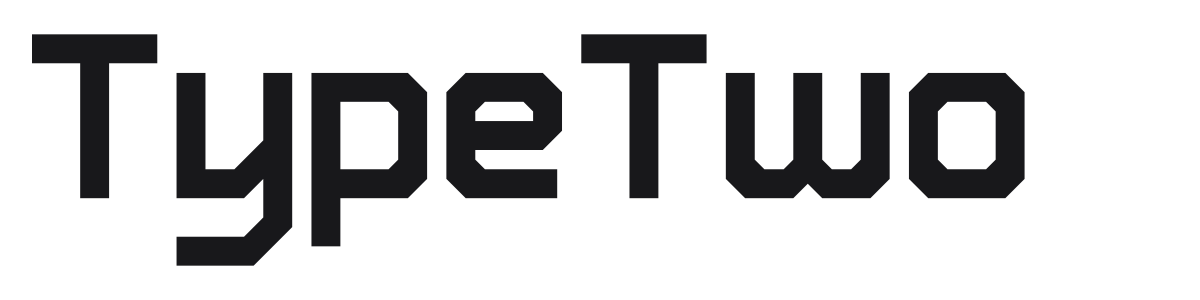
TypeTwo
TypeTwo is a bold geometric sans built on a strict square grid, with clipped corners and flat terminals that give every character a mechanical, modular feel. Based on nirmalbiswas's TypeOne, it pushes the original's structure into heavier, more commanding territory. The consistent heavy weight and wide proportions make it assertive at large sizes.